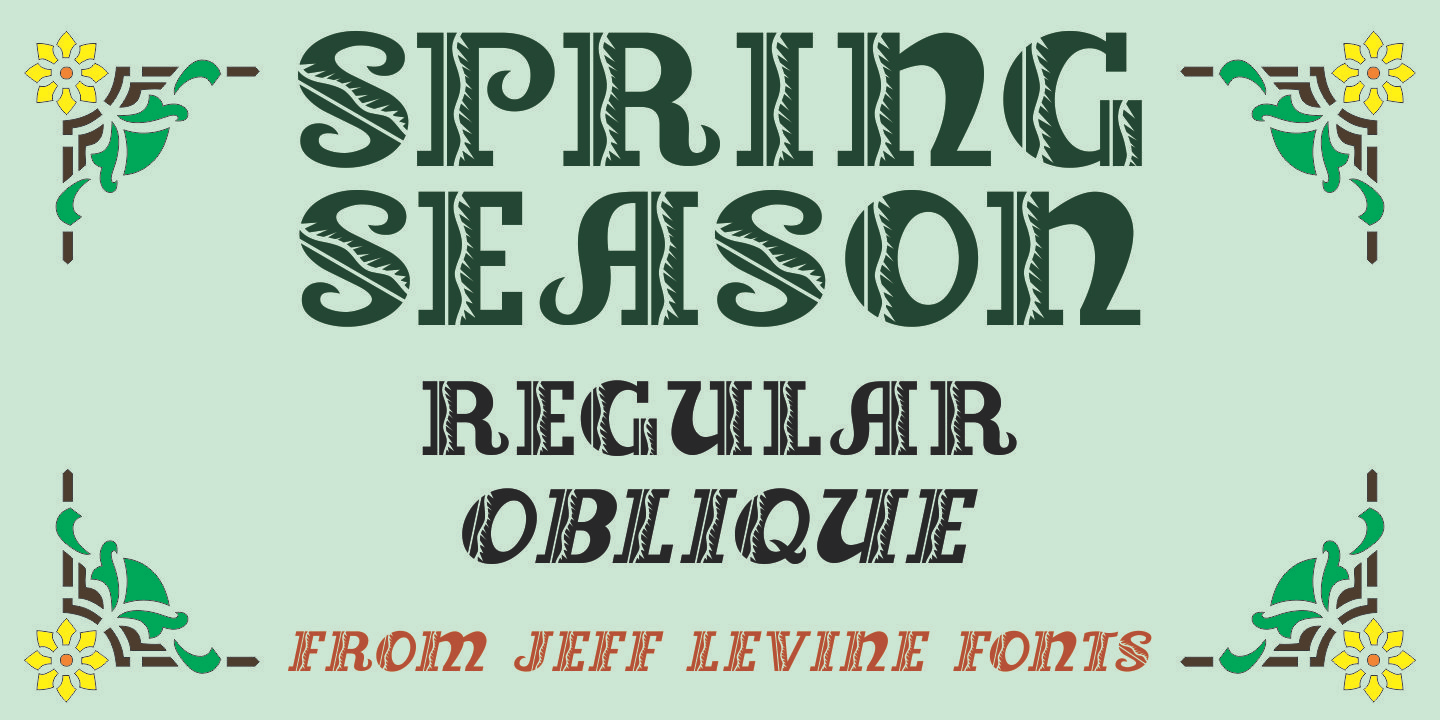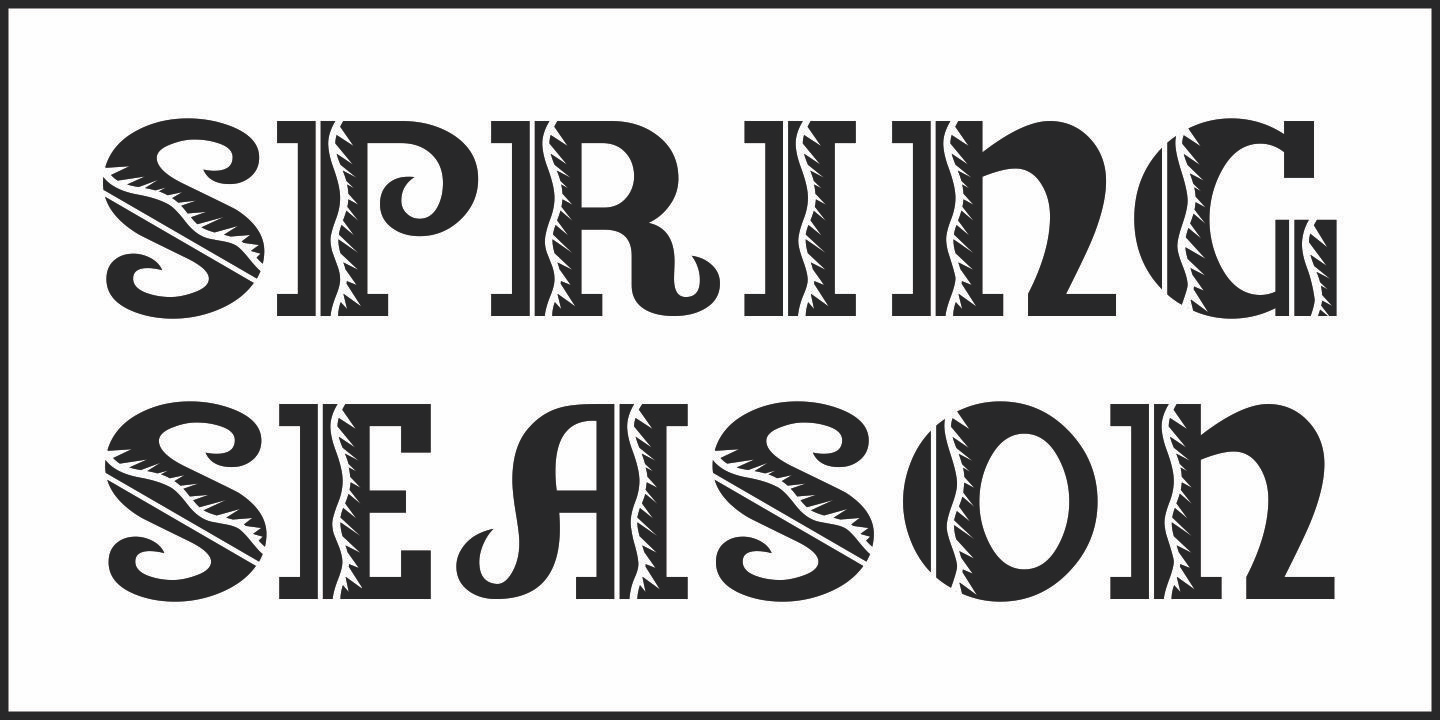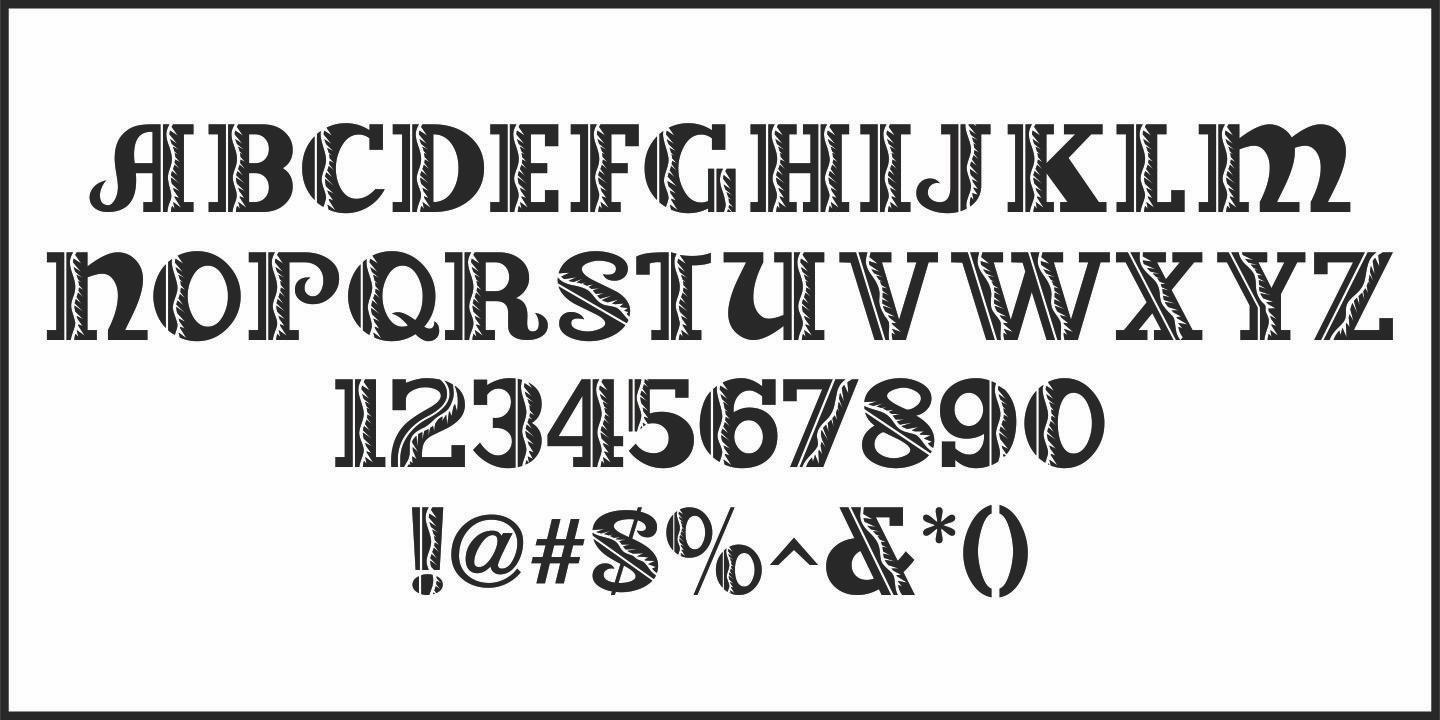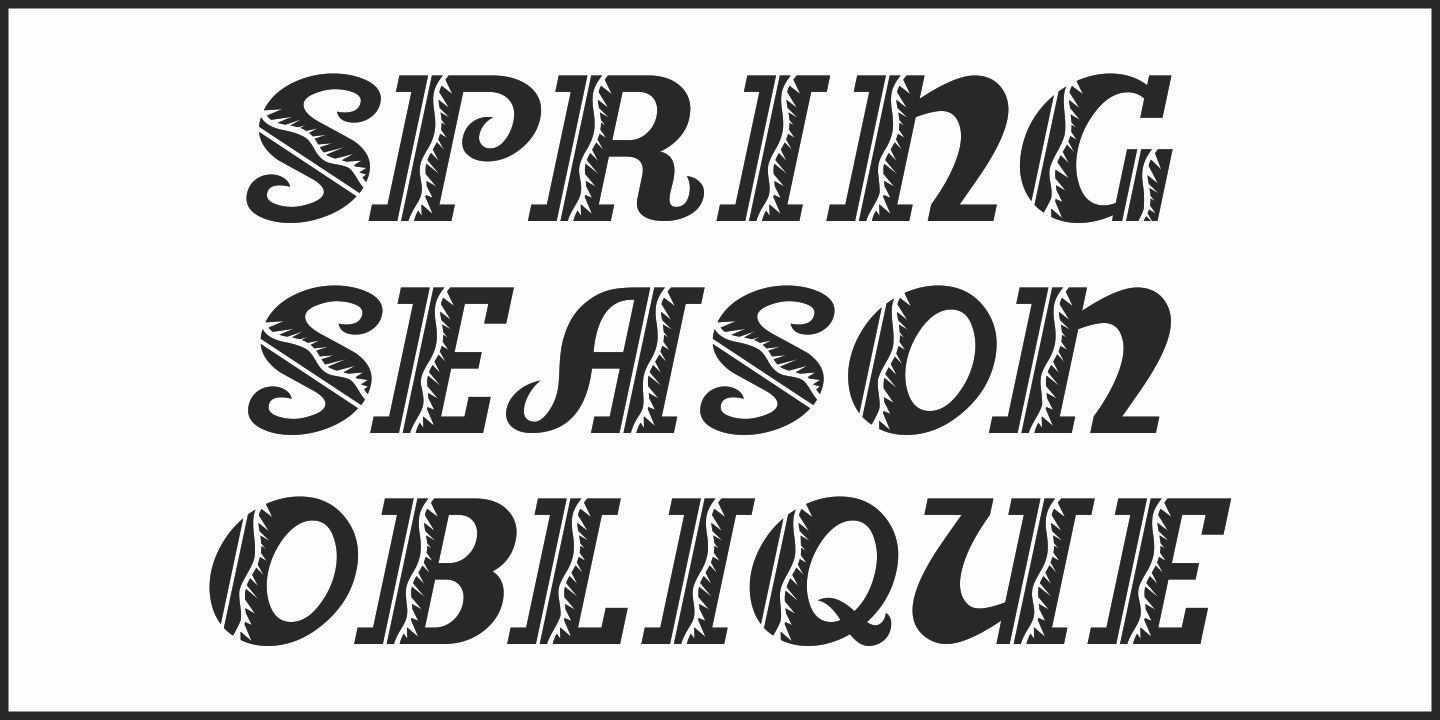
Spring Season
Spring Season JNL is a decorated and stylized Art Deco slab serif design from 1935 which is based on the hand lettered title on the sheet music for 'Paris in the Spring'.
The characters are cut through with both a straight line and a wavy, spoked line which looks something like a thorny vine.
Spring Season JNL is available in both regular and oblique versions.